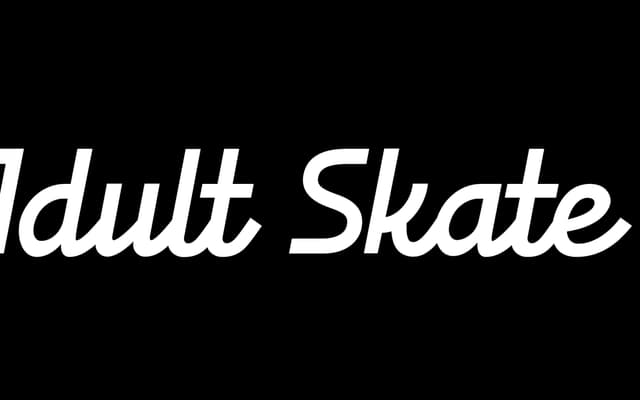
Adult Skate
A mono-weight casual script sitting between hand-lettering and cursive, suited to short phrases and single words.
Curvilinear letterforms give this script a loose, playful character without veering into full calligraphic territory. The glyph set covers upper and lowercase, numerals and special Latin characters, with alternate terminals on lowercase glyphs for a more individual look. Works best at display sizes in small runs of text rather than extended setting.
Described as falling between hand-lettering and cursive with curvilinear forms and a playful personality, placing it firmly in the casual script category.